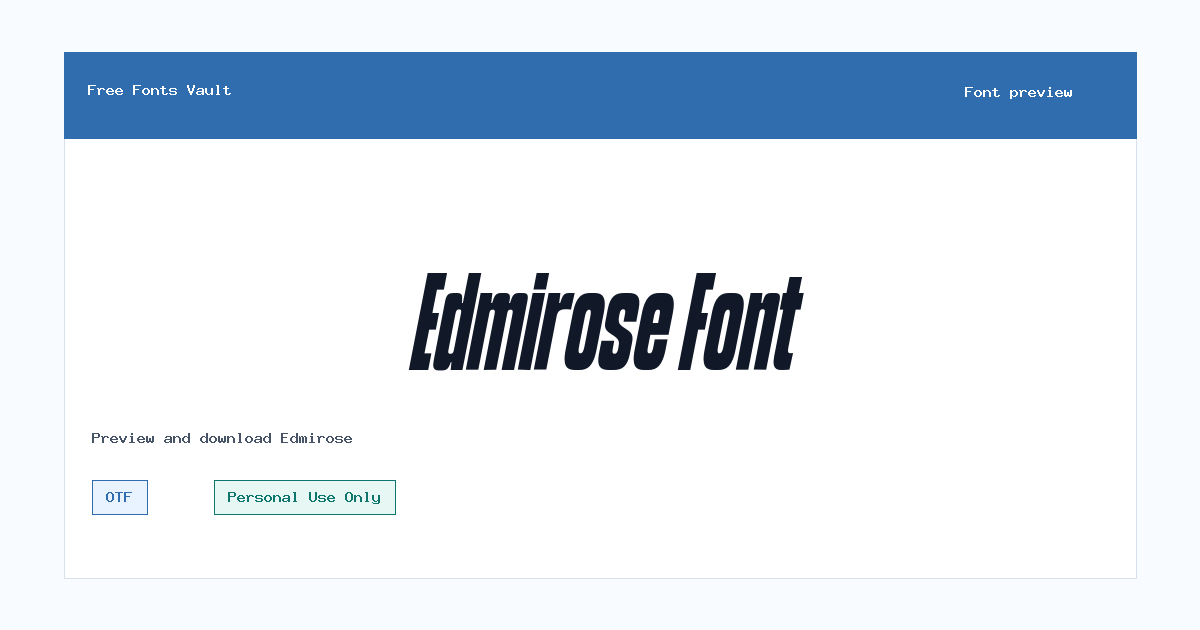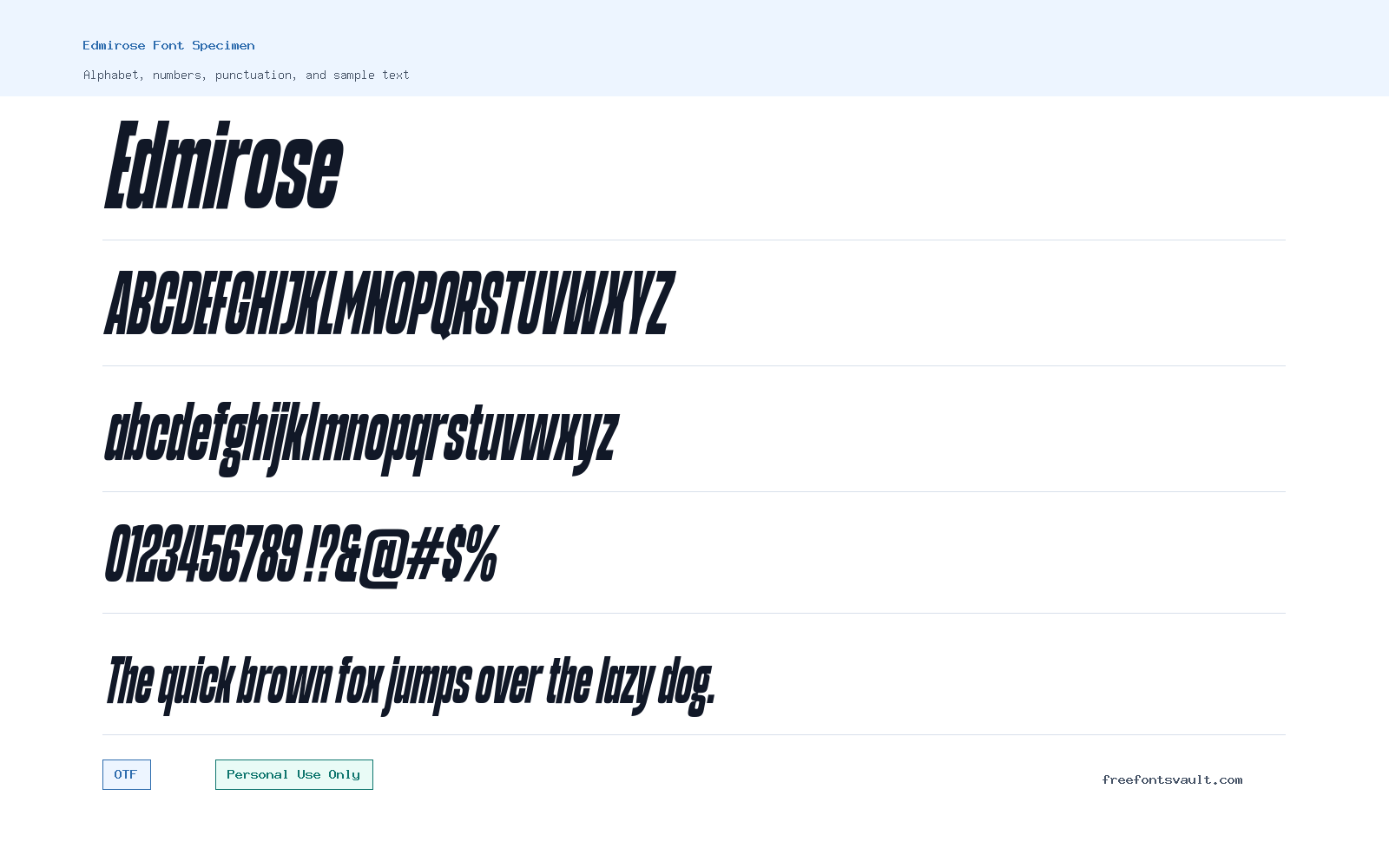
Edmirose
Edmirose font preview showing the family name
Edmirose Font
Edmirose font specimen showing alphabet, numbers, and sample text
Edmirose font.
Edmirose is a sans serif font family with Regular and Slanted OTF styles, made for personal design projects where you need a clean type choice with a little movement. It is a practical option for testing titles, short labels, social graphics, and display text before deciding whether it fits a larger design system.
About Edmirose Font
Edmirose keeps the focus on simple sans serif lettering rather than decorative effects. The Regular style is the safer starting point for clear words, short headings, name treatments, and layout tests. The Slanted style gives the same family a more angled look, which can help when a design needs emphasis without switching to a completely different font. Because the available files are OTF format, designers can use them in common desktop design tools after installing the font on their system.
Use Edmirose in the font preview with real words from your project before downloading. Try a short brand name, a menu title, a quote, or a few interface-style labels to see how the spacing and letter shapes feel at different sizes. The family is best treated as a display or short-text font until you have tested longer paragraphs yourself. For readable layouts, pair it with a calm body font and avoid using the slanted style for dense text, small captions, or anything that needs quick scanning.
• Useful for short headings, display text, personal mockups, and design previews
• Personal posters, social media graphics, title cards, and presentation covers
• Logo mockups, wordmark tests, packaging drafts, and short branding concepts
For the best results, start with the Regular style for the main text treatment and use the Slanted style only where emphasis helps the design. Test uppercase and lowercase combinations, check numbers and punctuation if your artwork needs them, and preview the font at the size you plan to export. If you are designing for print, make a small proof first so you can judge spacing and sharpness outside the screen preview.
What is Edmirose best used for?
It is best suited to short text such as headings, posters, social graphics, logo mockups, title treatments, and personal design experiments.
Can I use Edmirose for body text?
You can test it for longer text, but it is safer to use it first for short display text. Check readability carefully before using it in paragraphs or small sizes.